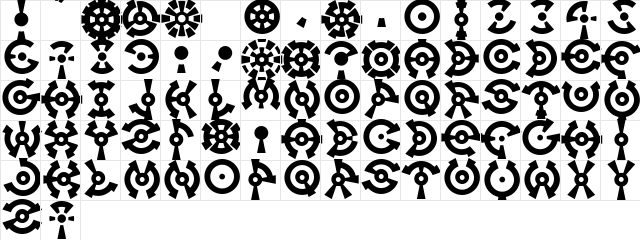
Anillo Regular
| Designer | Aneel Nazareth |
Design Context for Anillo Typeface
Anillo is a composed and adaptable typeface that performs quietly and consistently across a wide range of design contexts.